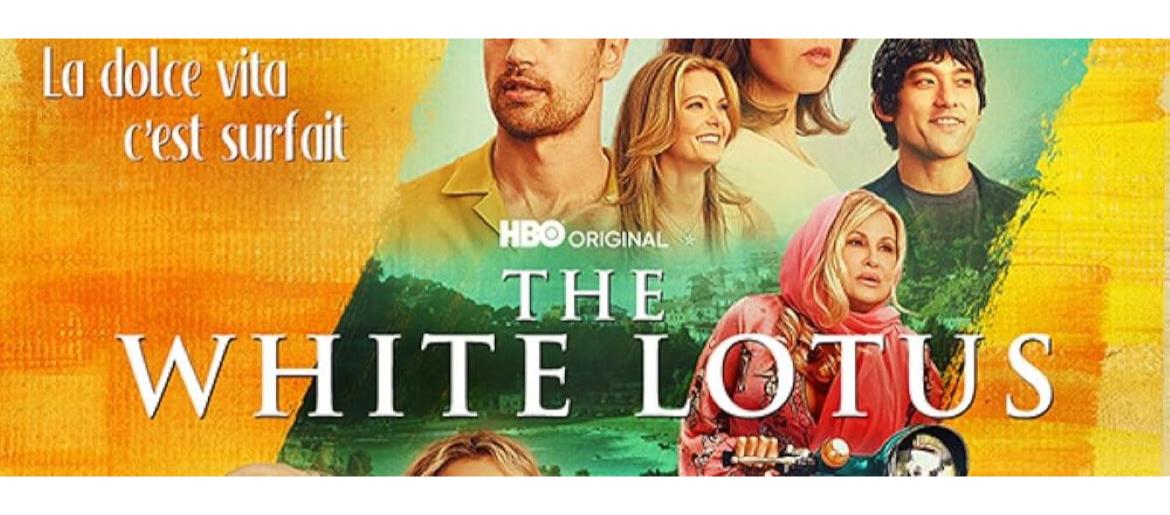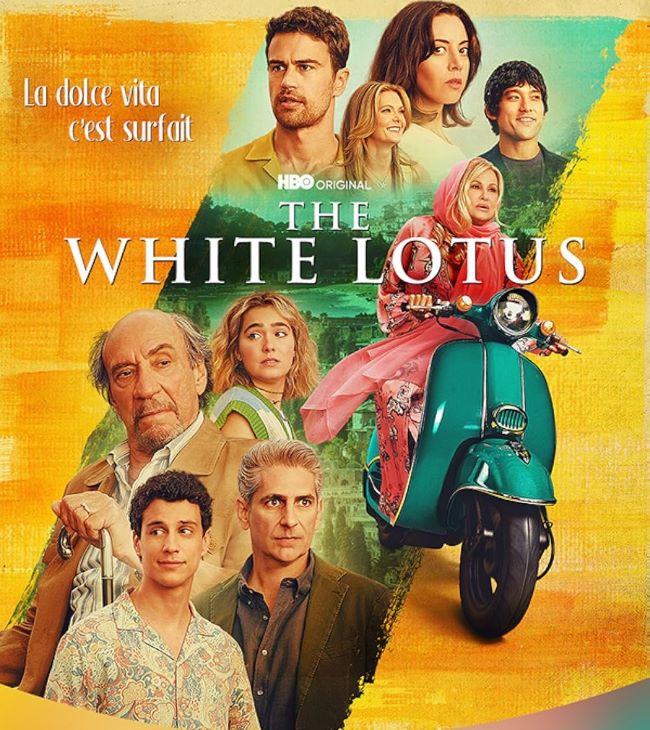
The White Lotus font reflects the sleek, elegant, and slightly mysterious vibe of HBO’s acclaimed series The White Lotus. With a refined serif style and clean, balanced spacing, the font mirrors the show’s mix of luxury and underlying tension. I think this typeface works beautifully for upscale branding, travel promotions, or any project that needs a touch of sophistication with a hint of intrigue. Its crisp lines and timeless design give off an air of exclusivity, making it perfect for creating a high-end, polished look while maintaining a subtle edge. The used in the logo is Trajan Pro Bold. However, if you need an alternative font then download the below font.
The White Lotus Font
The White Lotus font
About The White Lotus
The White Lotus is an award-winning anthology series that first premiered on HBO in 2021. Each season follows the guests and staff at a lavish White Lotus resort, exploring dark humor, social satire, and the complex relationships that unfold beneath the surface of paradise.